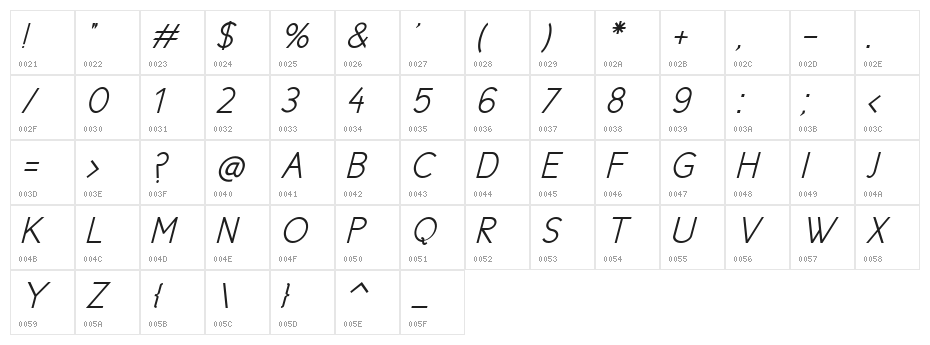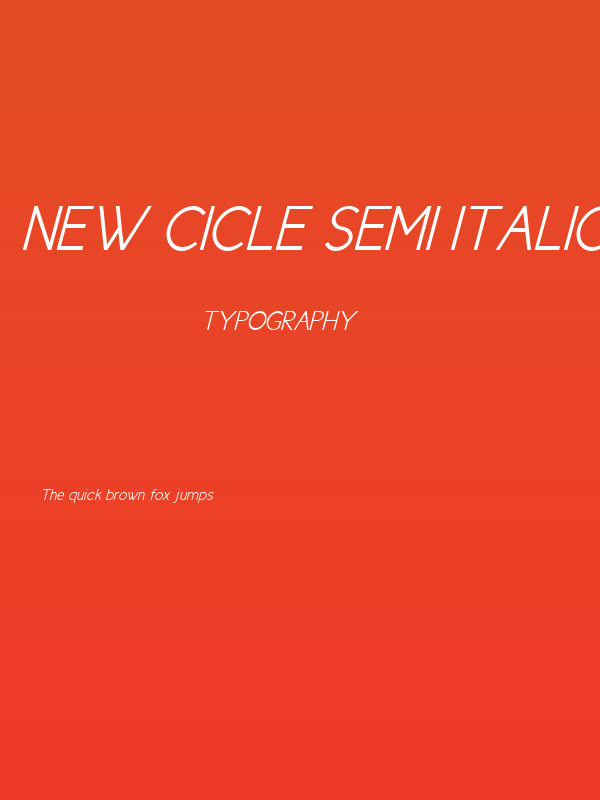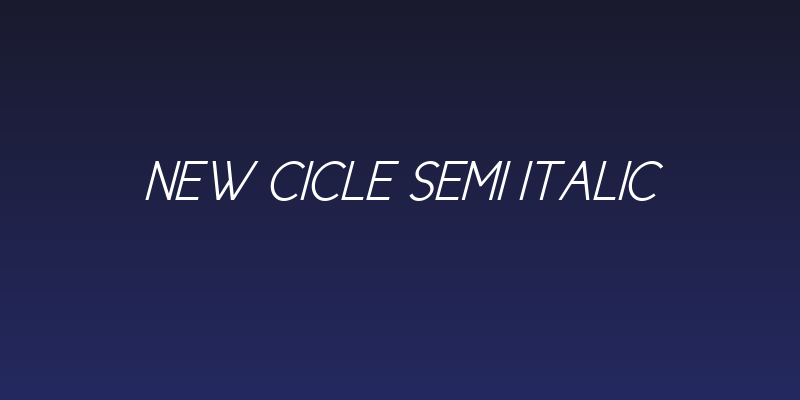
New Cicle Semi Italic Font
New Cicle Semi Italic Description
This font features a sleek, modern design with a slight italic slant, giving it a dynamic and forward-moving appearance. The characters are clean and geometric, with smooth curves and consistent line weights that create a harmonious and balanced look. The uppercase and lowercase letters maintain a uniform style, while the numerals and special characters are crafted to match seamlessly. The overall aesthetic is contemporary and professional, making it suitable for a variety of design applications.